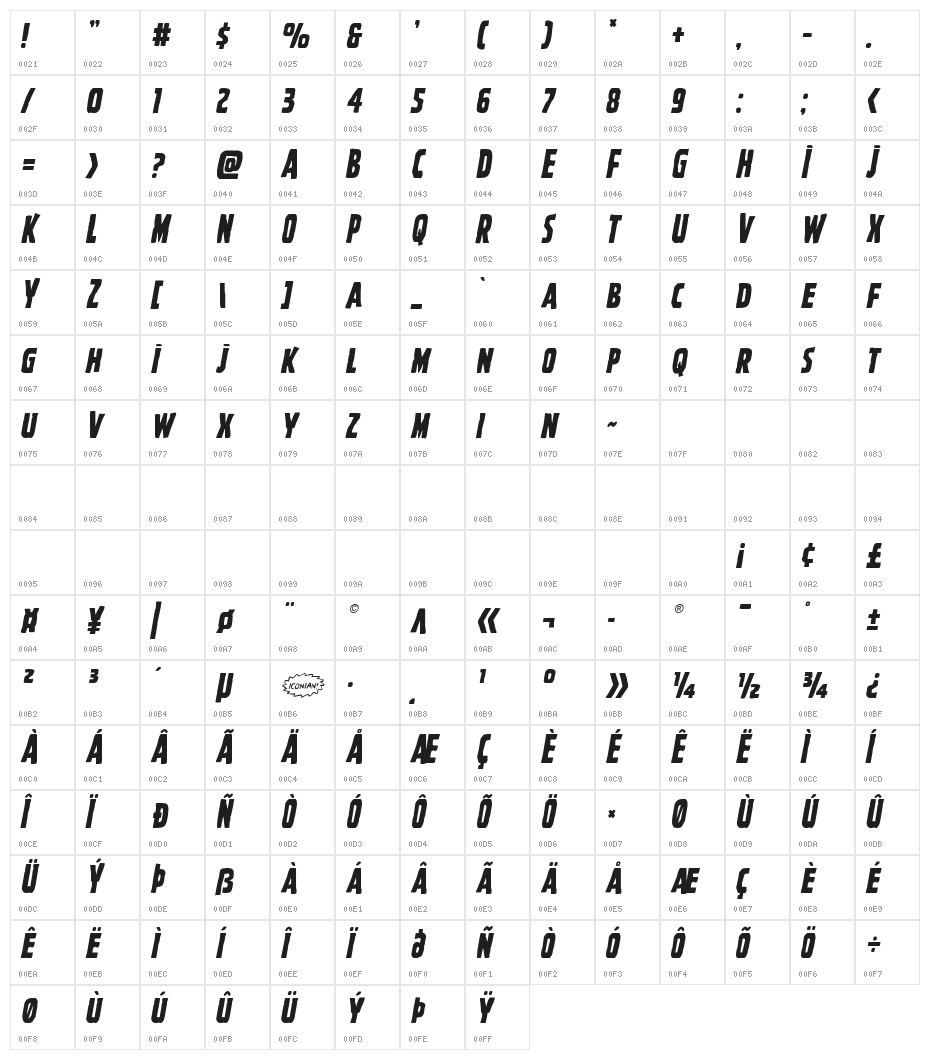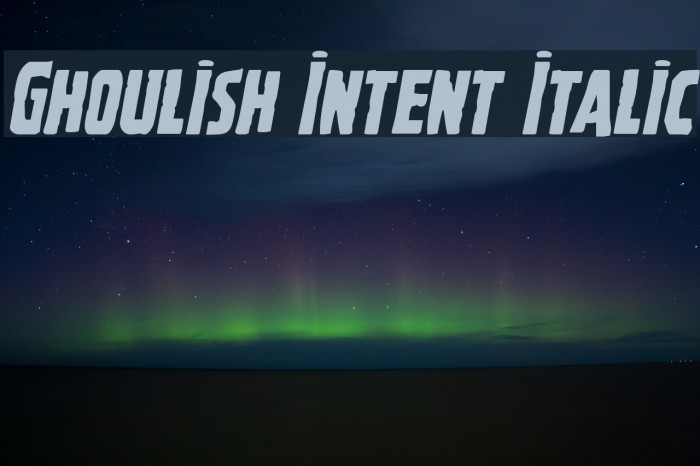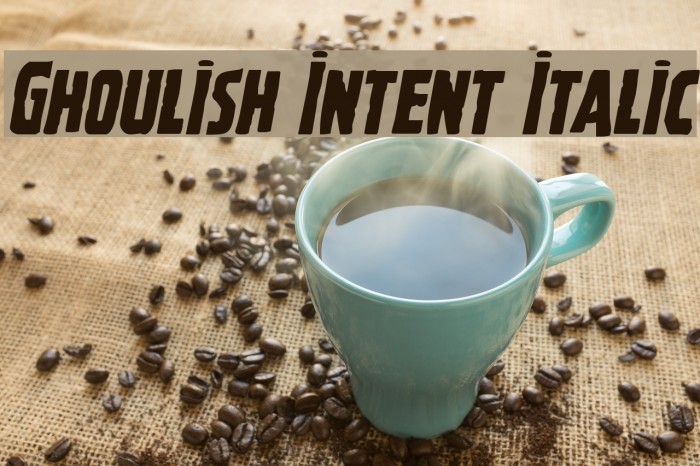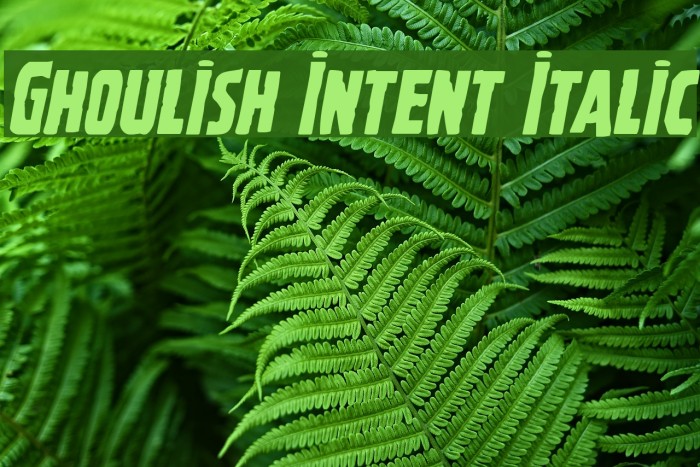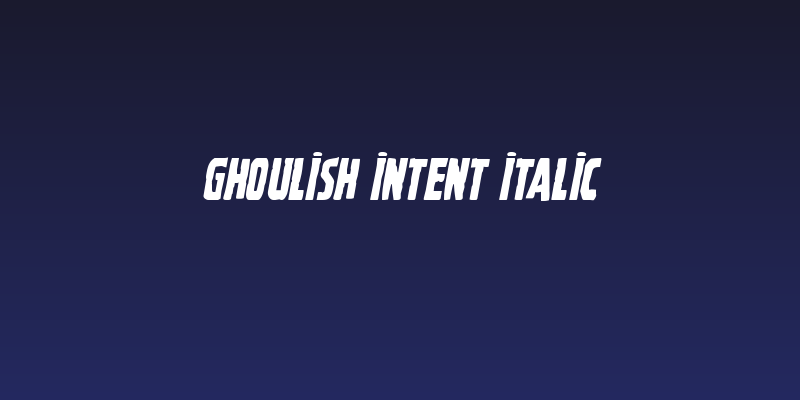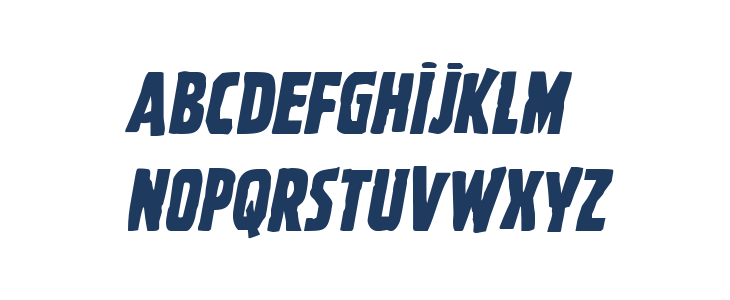
Ghoulish Intent Italic Font
Ghoulish Intent Italic Description
This font features a bold and dynamic style with a distinct italic slant, giving it a sense of movement and energy. The characters are thick and robust, with a slightly condensed form that enhances its bold appearance. The strokes are consistent in weight, providing a uniform look across all characters. The uppercase and lowercase letters maintain a cohesive style, while the numerals and special characters are designed to match the overall aesthetic. This font's unique style makes it suitable for projects that require a strong visual impact.